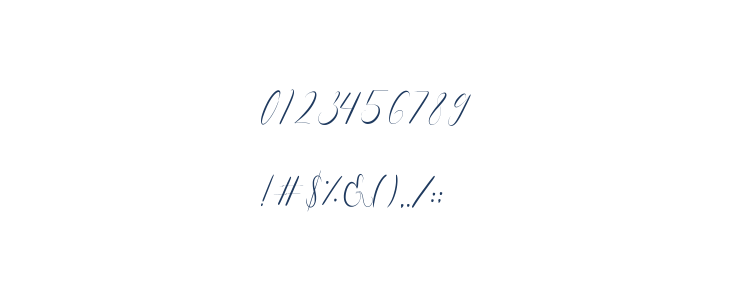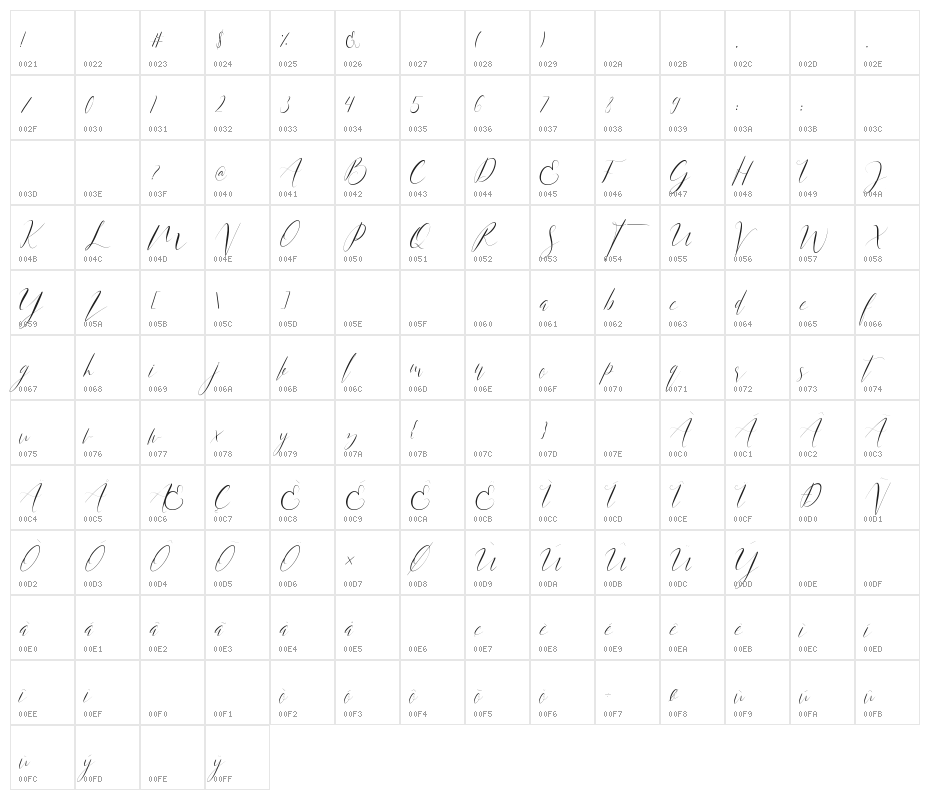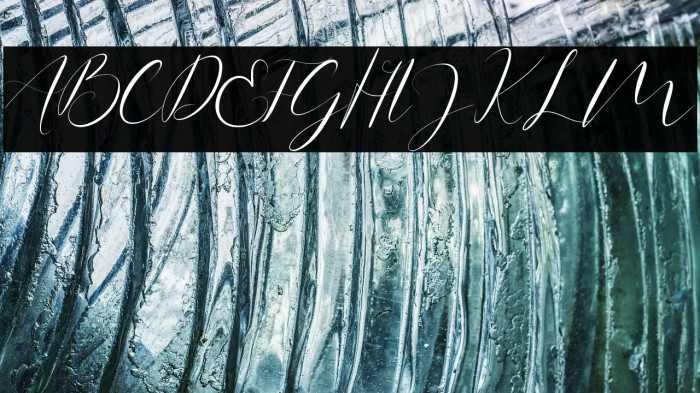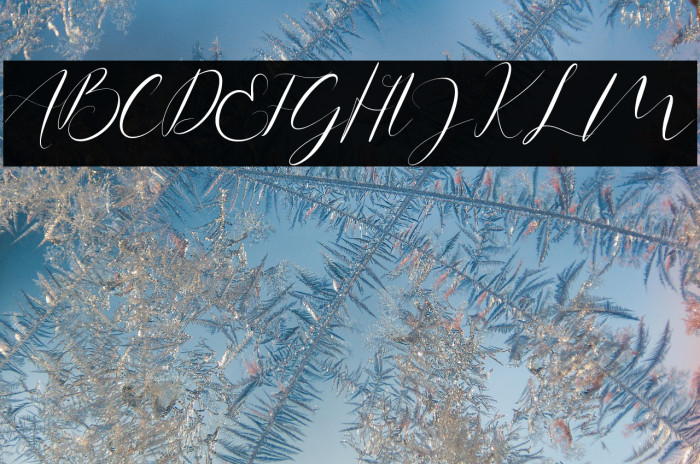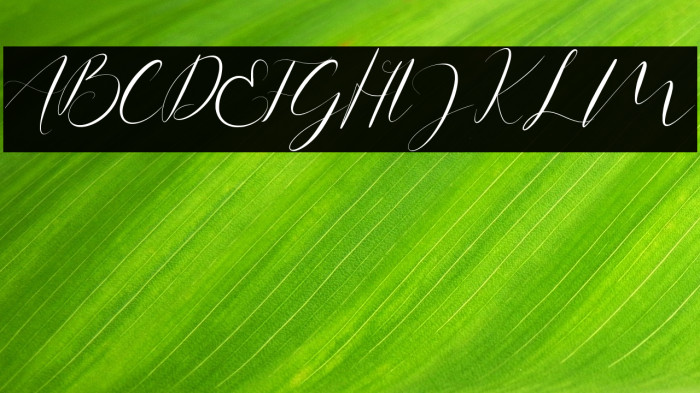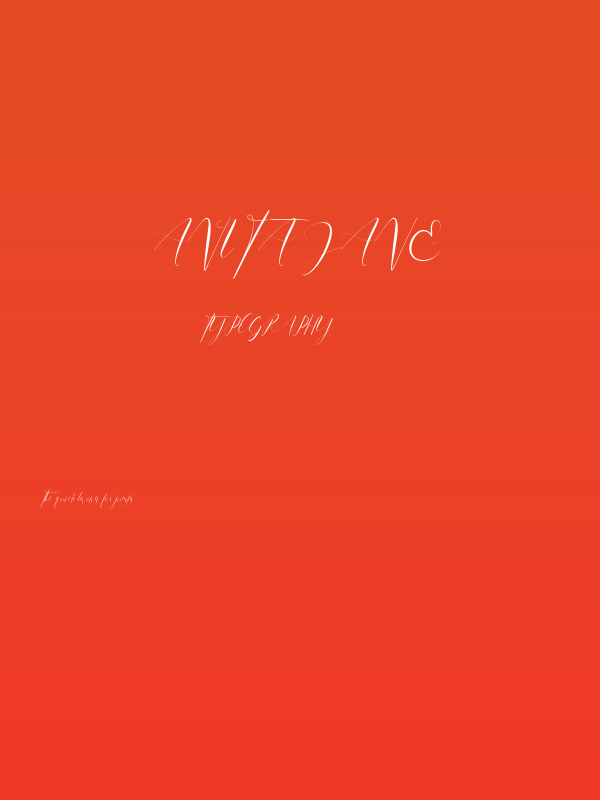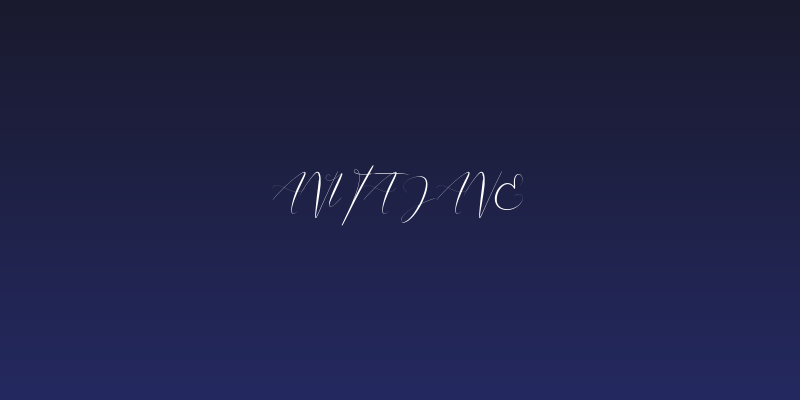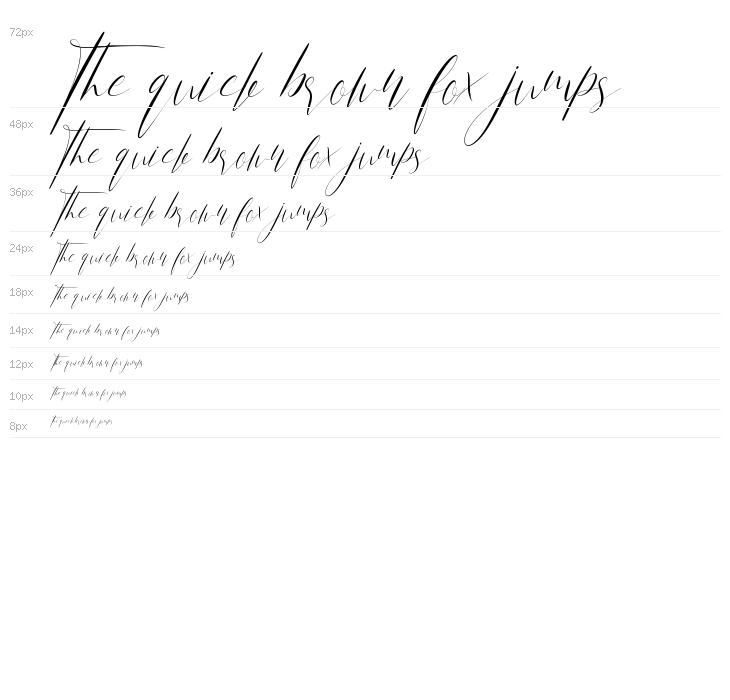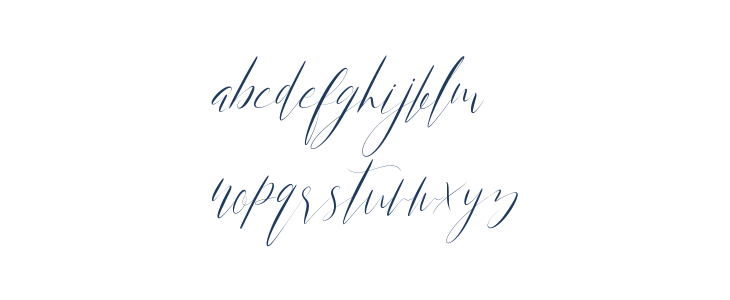
Anita Jane Font
Anita Jane Description
This elegant script font features a flowing, cursive style with delicate, sweeping strokes that exude sophistication and grace. The letters are interconnected, creating a seamless and fluid appearance. The uppercase characters are bold and prominent, while the lowercase letters maintain a consistent rhythm and balance. The numerals and special characters are designed with the same attention to detail, ensuring a cohesive look across all elements. This font's high contrast between thick and thin strokes adds to its refined and polished aesthetic, making it ideal for projects that require a touch of elegance.
| Proposed Projects | Ideal for wedding invitations, elegant branding, luxury packaging, and personal stationery. |